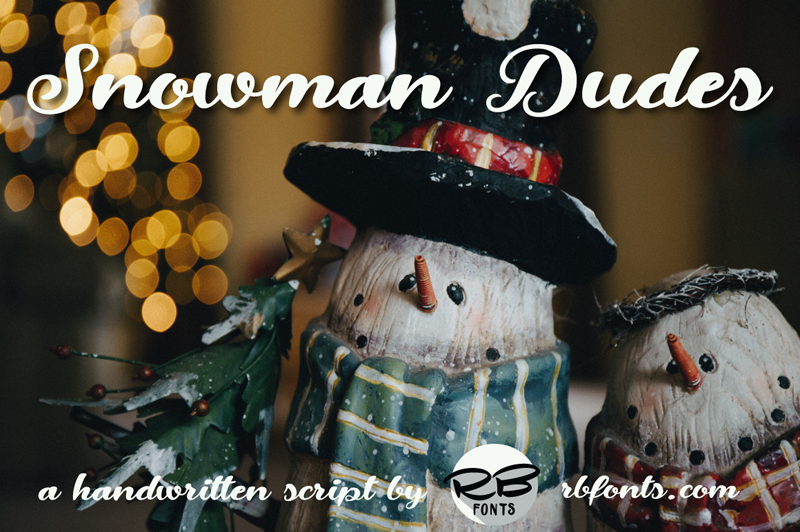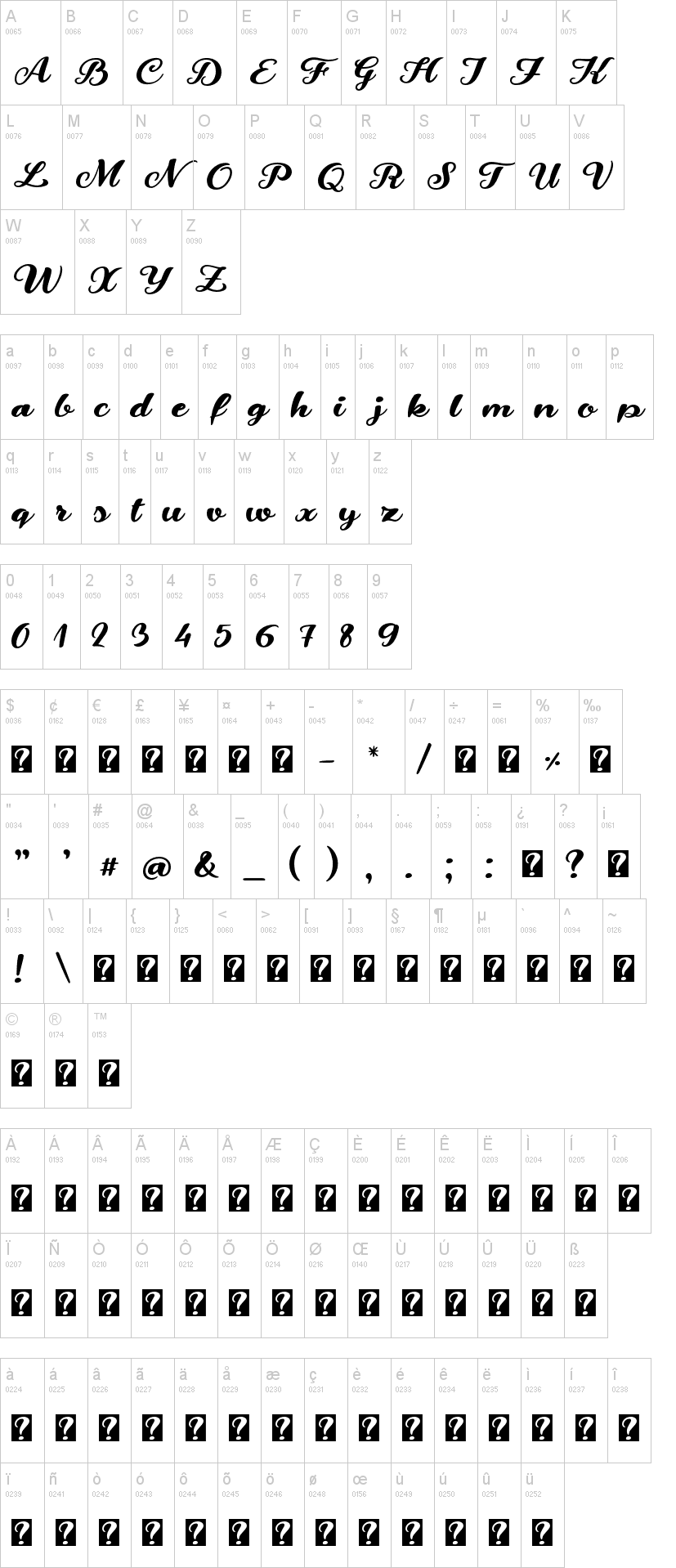
Note of the authorSnowman Dudes is a handmade, happy and bold calligraphy font that you can use for all your creative projects wether it be
* logos,
* printed quotes,
* invitations,
* cards,
* Instagram posts.